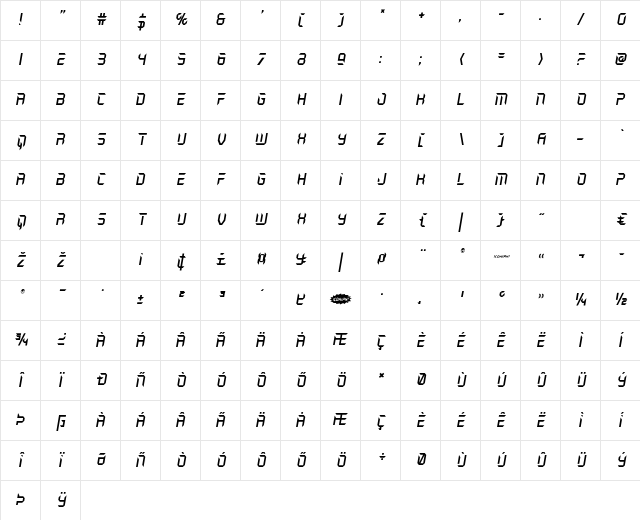
Holo-Jacket is a composed and adaptable typeface that performs quietly and consistently across a wide range of design contexts. The slanted form adds forward momentum and visual energy.
Pro Tip: Use Holo-Jacket for emphasis, pull quotes, and subheadings where its slanted energy can add rhythm to the layout.